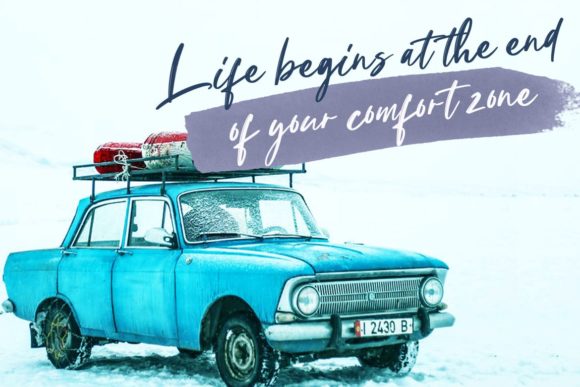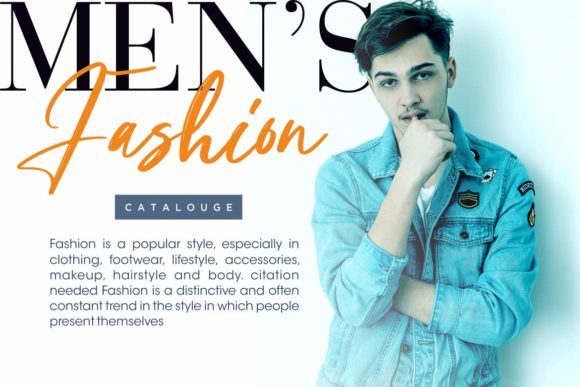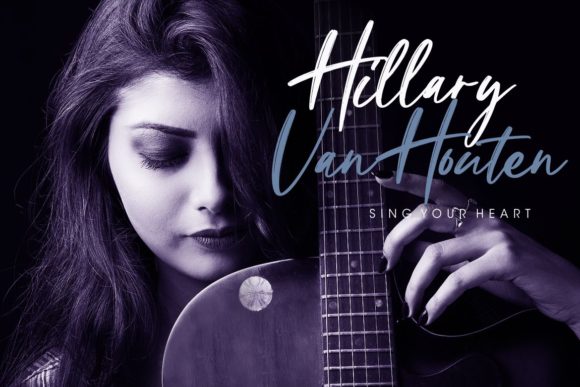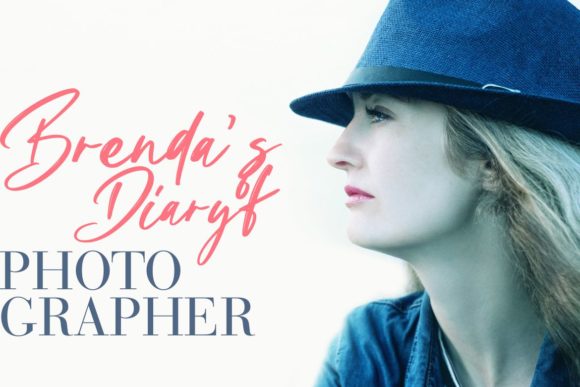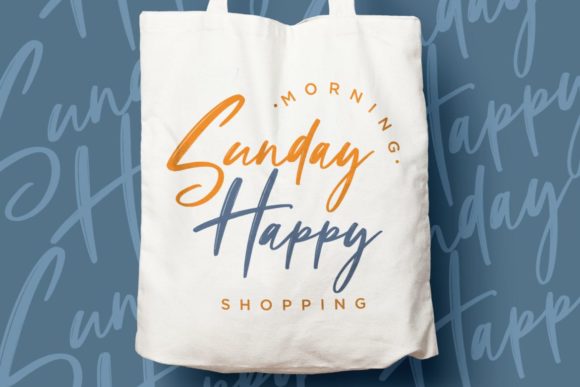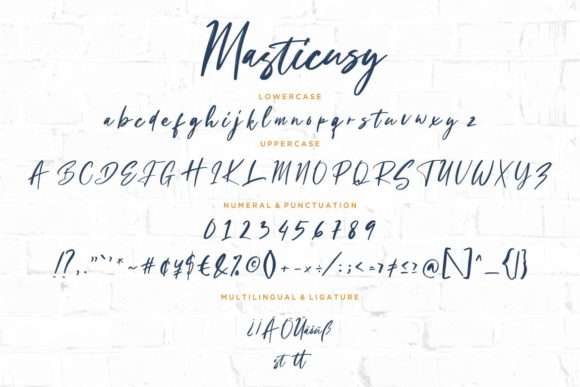
Introduction to Masticusy Font
Have you ever been working on a creative project, pouring your heart and soul into it, only to feel like something’s missing? That’s when the perfect design element can make all the difference. For designers and crafters alike, finding the right font can elevate an idea from good to great. And that’s where Masticusy Font comes in – an authentic and dazzling script that’s sure to turn any crafting idea into a true piece of art.
With its stunning characters and high-quality design, Masticusy Font is a valuable resource for any creative project. Whether you’re working on a digital design, a handmade craft, or a print project, this font is sure to bring your vision to life. And the best part? It’s available for free download, making it an accessible design resource for designers of all levels.
But what sets Masticusy Font apart is its versatility. With a transparent background, you can easily overlay it on top of your design, making it a seamless addition to your project. Whether you’re working on a simple text-based design or a complex composition, this font is sure to bring a touch of elegance and sophistication.
Key Features of Masticusy Font
- Unique, hand-drawn design with a playful and creative feel, making it perfect for a wide range of creative projects.
- Features a large character set, including uppercase and lowercase letters, numbers, and punctuation marks, making it suitable for a variety of creative projects.
Honest Review: Masticusy Font
I recently stumbled upon the Masticusy Font, and I must say it’s been a great addition to my design resource library. The font is available for free download, which is always a plus for those of us working on creative projects on a budget.
- ✨ The font has a unique, quirky aesthetic that sets it apart from more traditional fonts.
- ✨ The high quality of the font ensures that it looks great on both light and dark backgrounds, making it versatile for a wide range of design applications.
- ✨ The transparent background option allows for seamless integration into any design project, without the distraction of a background that doesn’t match your brand or aesthetic.
- ⚠️ The font may not be suitable for formal or professional applications, due to its playful and informal design.
- ⚠️ The font is only available in a few different weights, which may limit its versatility for certain design projects.
Overall, I’m really impressed with the Masticusy Font. It’s a great addition to any design library, and its unique aesthetic and high quality make it a valuable resource for any creative project.
Tips for Getting the Most Out of Masticusy Font
Experiment with different font sizes, colors, and combinations to get the most out of Masticusy Font. You can also use it in conjunction with other design elements, such as images and graphics, to create a visually appealing and creative project.
Masticusy Font is suitable for a wide range of creative projects, including logo design, typography, and digital art. Its high quality and transparent background make it an ideal choice for designers looking to create visually striking and unique designs.